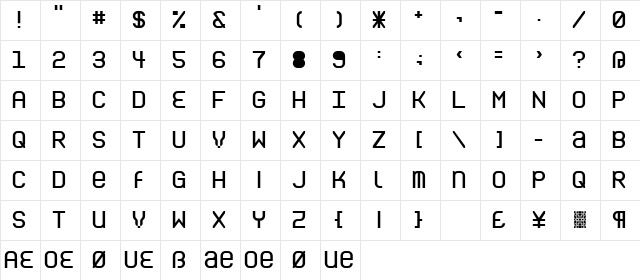
CloseCall PM
CloseCall takes a measured approach to typography — its balanced proportions and neutral character make it a reliable workhorse for both digital and print work.